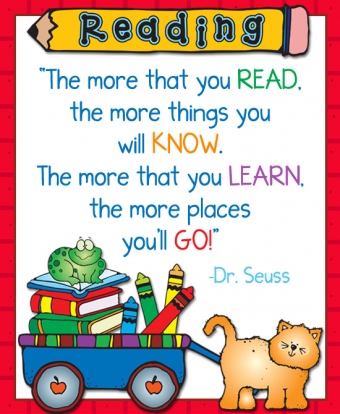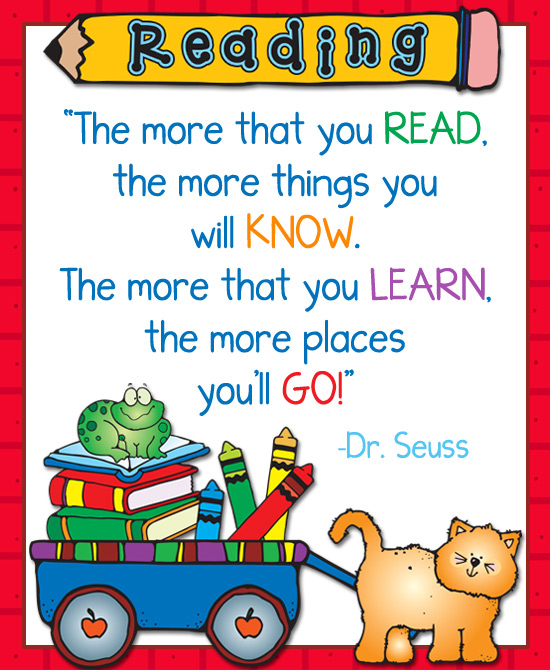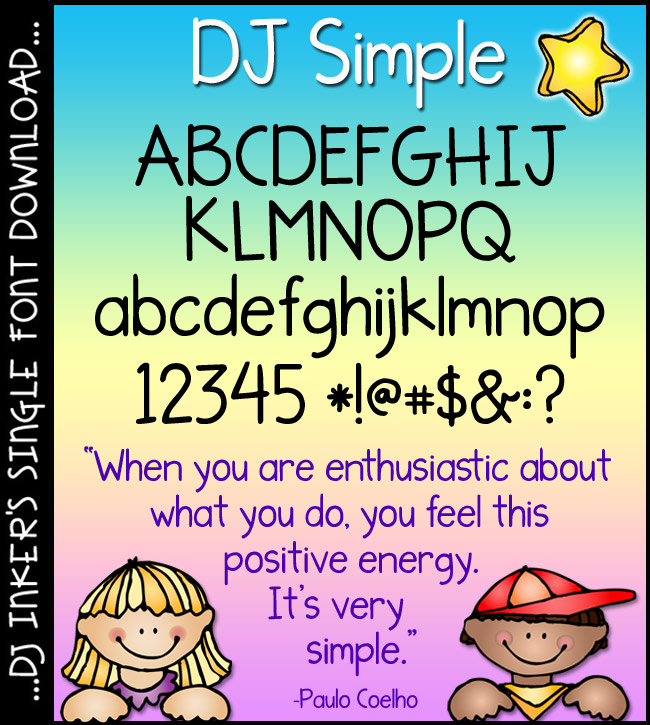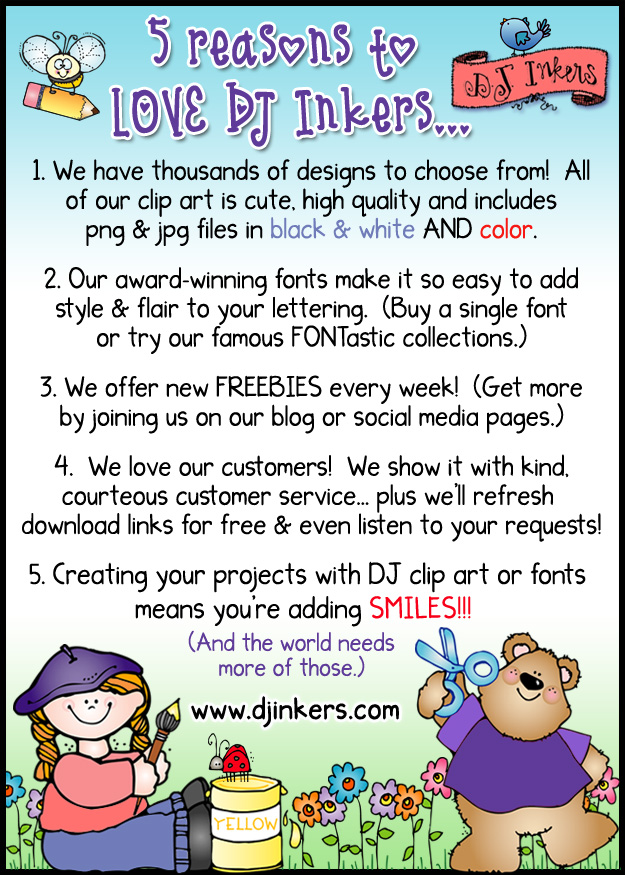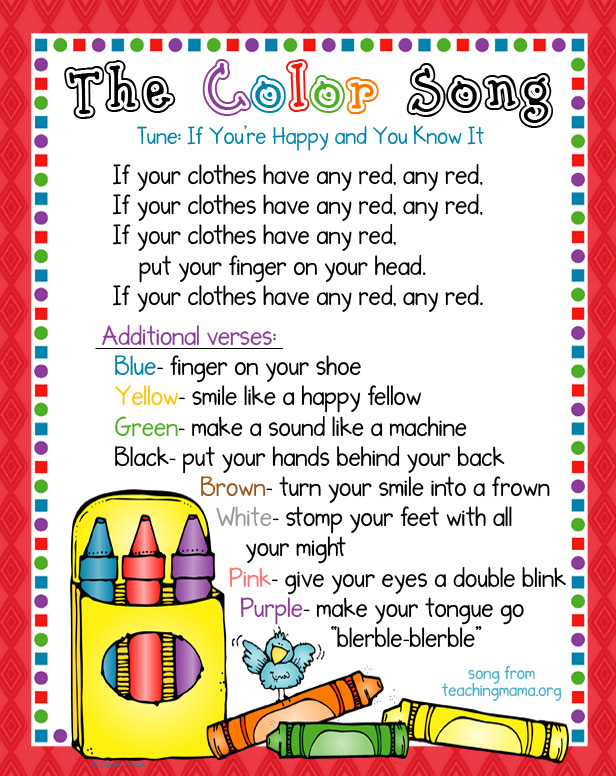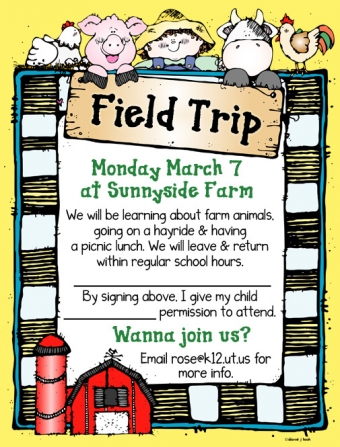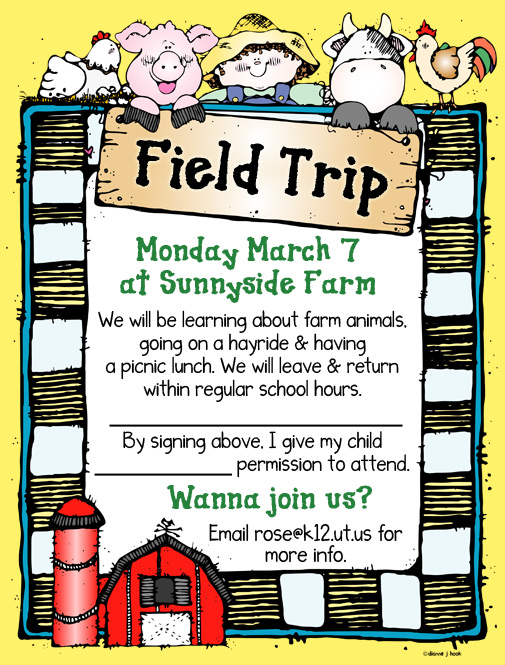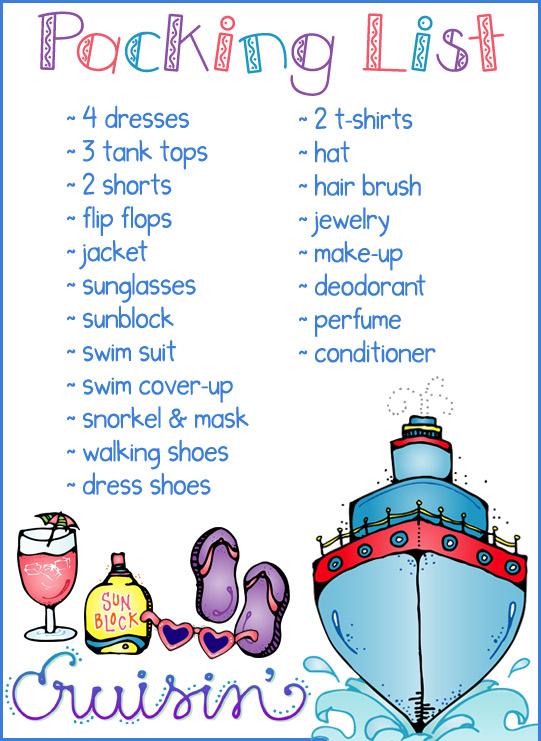
DJ Simple Font Download
Sometimes the simplest things in life are the best, aren't they? Well,
our sweet and DJ Simple font is just what you need to type-up the
basics at school, at home or at play! Great for instructions, lists, letters,
and text of any kind. This font is excellent in any size or color too.